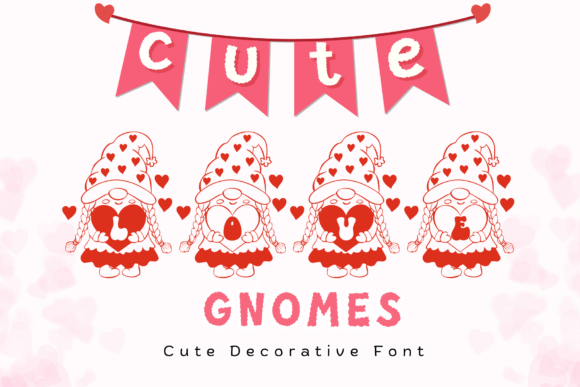
Love is in the Air with Cute Love Gnomes Font
As a designer, you’ve probably found yourself sitting at your desk, staring blankly at a blank canvas, trying to come up with the perfect design for a Valentine’s Day project. The pressure is on, and you want to create something truly special. That’s when you remember the power of the right font.
Enter Cute Love Gnomes Font, a charming and radiant decorative font that’s perfect for adding a touch of whimsy to your designs. With its adorable gnome-inspired characters, this font is sure to steal hearts and make your projects stand out from the crowd. Whether you’re creating wedding invitations, social media posts, or stationary art, Cute Love Gnomes Font is a valuable tool in your design arsenal.
Cute Love Gnomes Font Key Features
- Font Family: Cute Love Gnomes
- Font Size: 8,000+ glyphs, making it suitable for various designs
- Unique Characteristics: Whimsical, playful, and romantic style with intricate details and ornaments, perfect for wedding invitations, valentine’s day designs, and other love-themed projects
Cute Love Gnomes Font Review
I recently had the chance to work with the “Cute Love Gnomes Font” and I’m here to share my honest thoughts on it.
- The font is incredibly whimsical and perfect for projects that need a touch of romance and magic.
- The font has a wide range of glyphs, including special characters and ligatures, which makes it versatile for various design applications.
- The font is well-optimized for digital use, making it suitable for web design, social media graphics, and more.
- The font may not be suitable for formal or professional projects, as it has a playful and childish tone.
- The font’s design can be a bit over-the-top for some users, which may not be desirable for all design projects.
Overall, I think the “Cute Love Gnomes Font” is a great addition to any designer’s toolkit, especially for projects that require a touch of sweetness and magic. However, it’s essential to consider the font’s limitations and suitability for your specific project before using it.
For the most effective use of the ‘Cute Love Gnomes Font’, use it for whimsical and romantic designs, such as wedding invitations, Valentine’s Day cards, and social media posts. To get the most out of the font, experiment with different font sizes, colors, and combinations with other fonts.